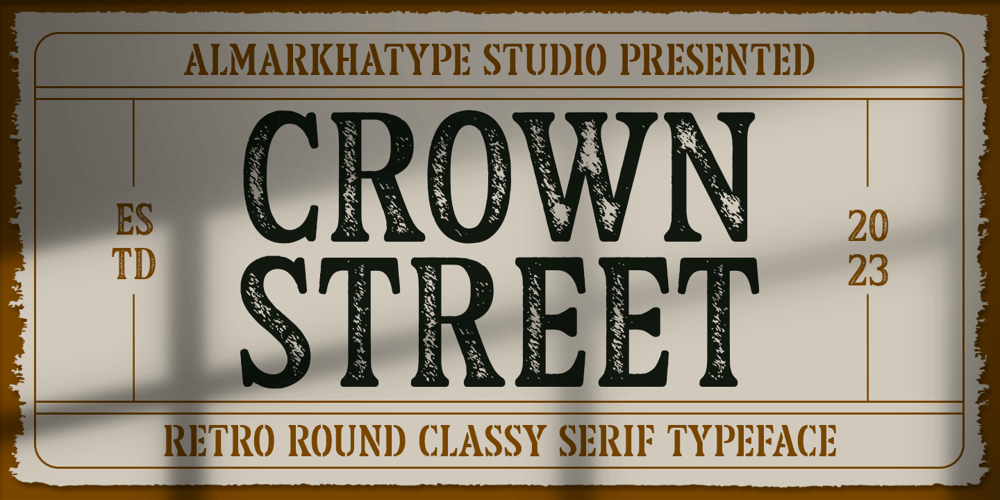
Crown Street
Crown Street font
Crown Street Font Family was designed by Abdul Malik Wisnu, Rivo Adriansyah and published by Almarkha Type. Crown Street contains 3 styles and family package options. Enhance your projects with Crown Street, a font inspired by military aesthetics and offering three unique styles: clean, stamp, and stencil. Its narrow specialization makes it perfect for military-themed projects, whether contemporary or vintage. Crown Street adds versatility and sophistication to your designs, catering to a wide range of applications. Additionally, its extended character set ensures seamless support for multilingual languages, expanding your global audience. Elevate your projects today with the distinctive charm of Crown Street.Accessible in Adobe Illustrator, Adobe Photoshop, Adobe InDesign, and even work on Microsoft Word. PUA Encoded Characters – Fully accessible without additional design software. Fonts include multilingual support image used: All photographs/pictures/vectors used in the preview are not included, they are intended for illustration purposes only.